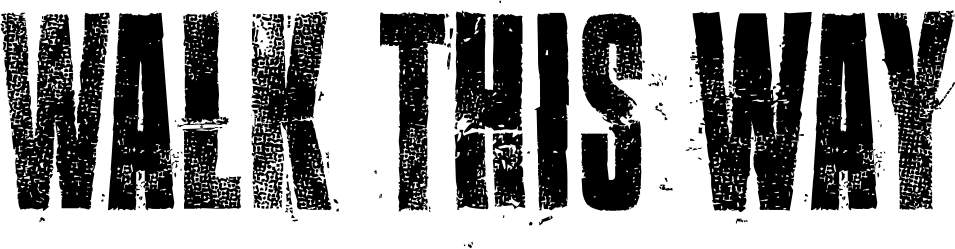
Walk this way Font
To design a text-based layout what comes first is choosing the proper font. Here is Walk this way with a destroyed and classic appearance. You can apply this eroded font to movies, games, posters, etc. Just try it out and see how amazing it sounds. Don’t forget that this case doesn’t consist of small letters.